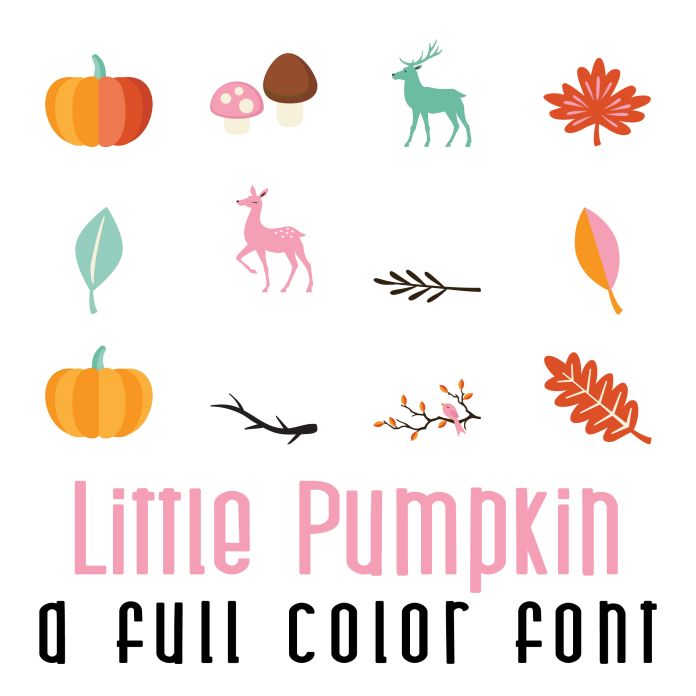
This fun full color font features 26 fun fall images of pumpkins and forest animals! Perfect for cards, crafts, parties, gifts, decor, planner stickers, classrooms, scrapbook pages and more!